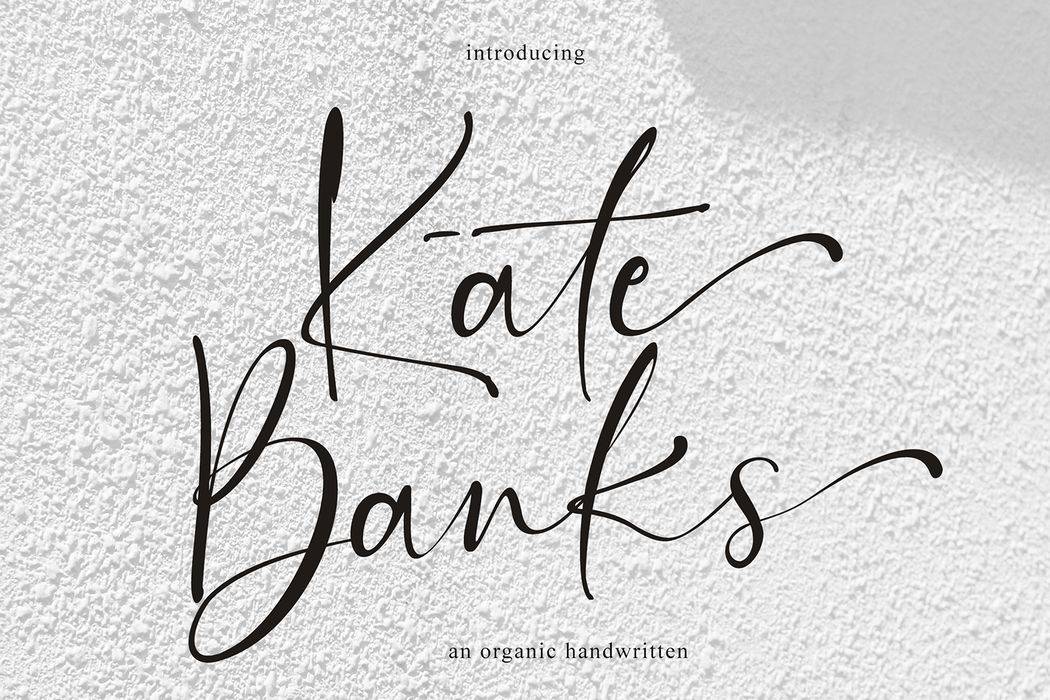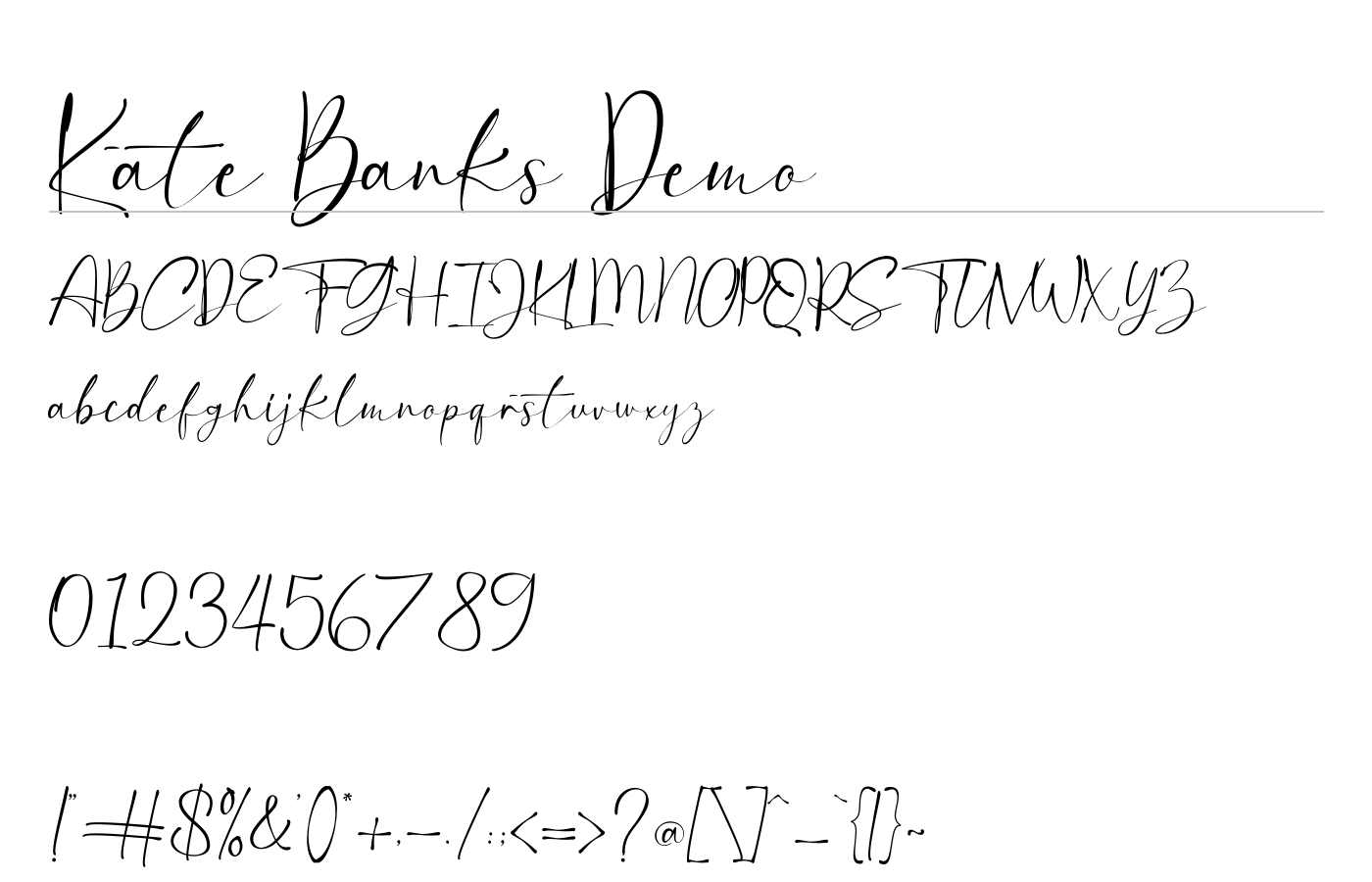
Kate Banks is a delicate, handwritten script font featuring elegant, flowing letterforms with a playful and spontaneous feel. Its thin strokes and airy spacing give it a light, graceful appearance that works beautifully for personal branding, invitations, or feminine, artistic projects. This font conveys warmth and creativity, making it ideal for designs that want to appear approachable yet refined.
Kate Banks Font
About Kate Banks Font
| Font family | Kate Banks Font |
| Designer | Tikara Sari |